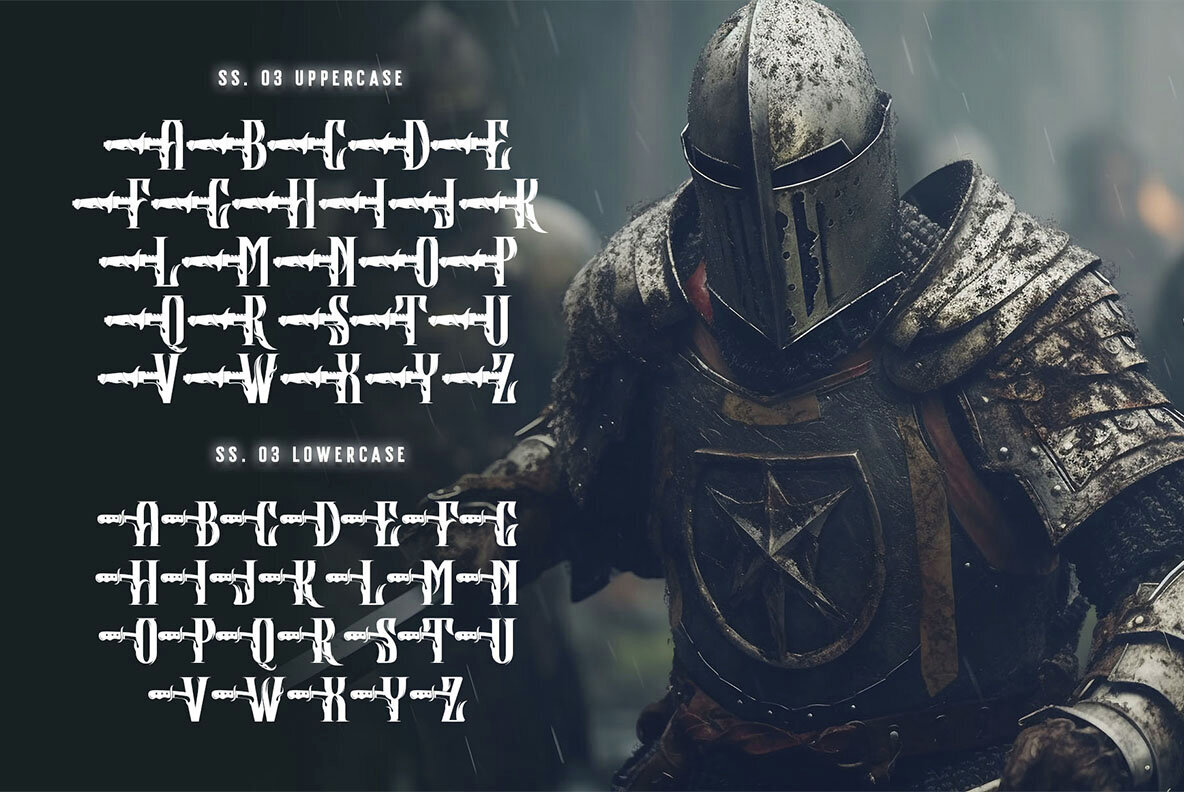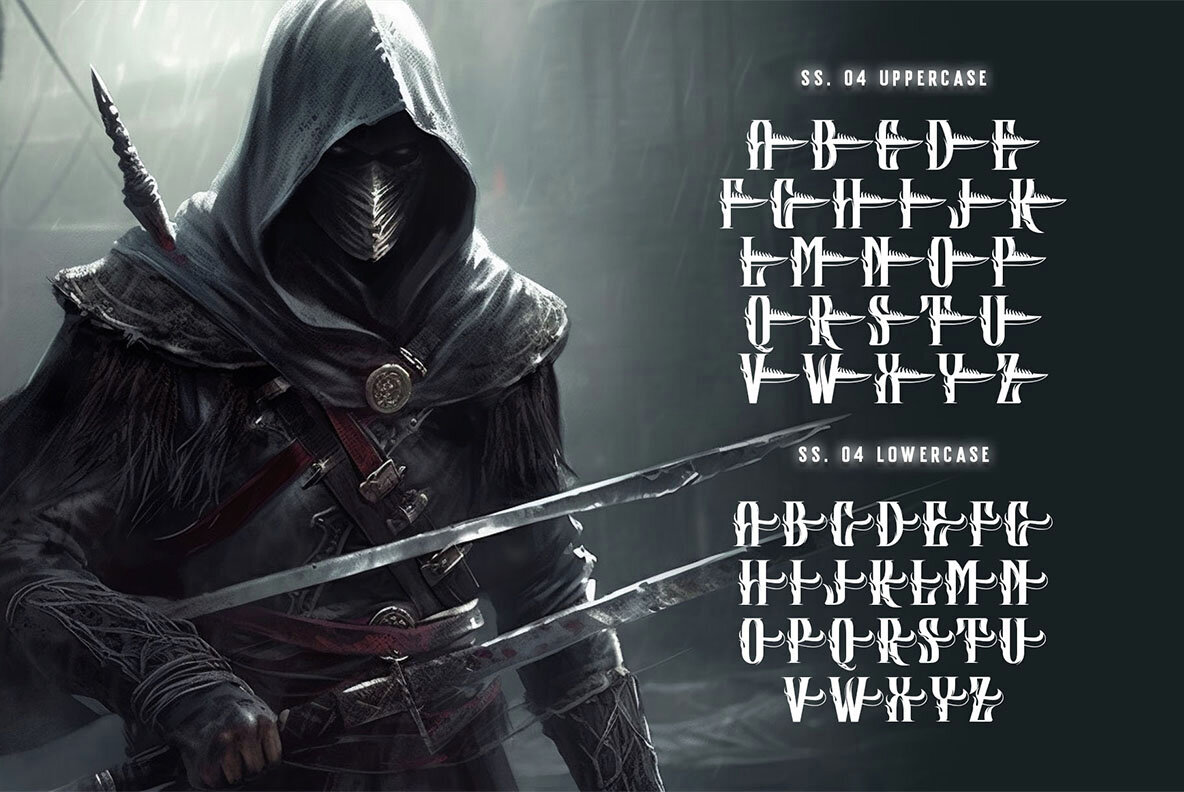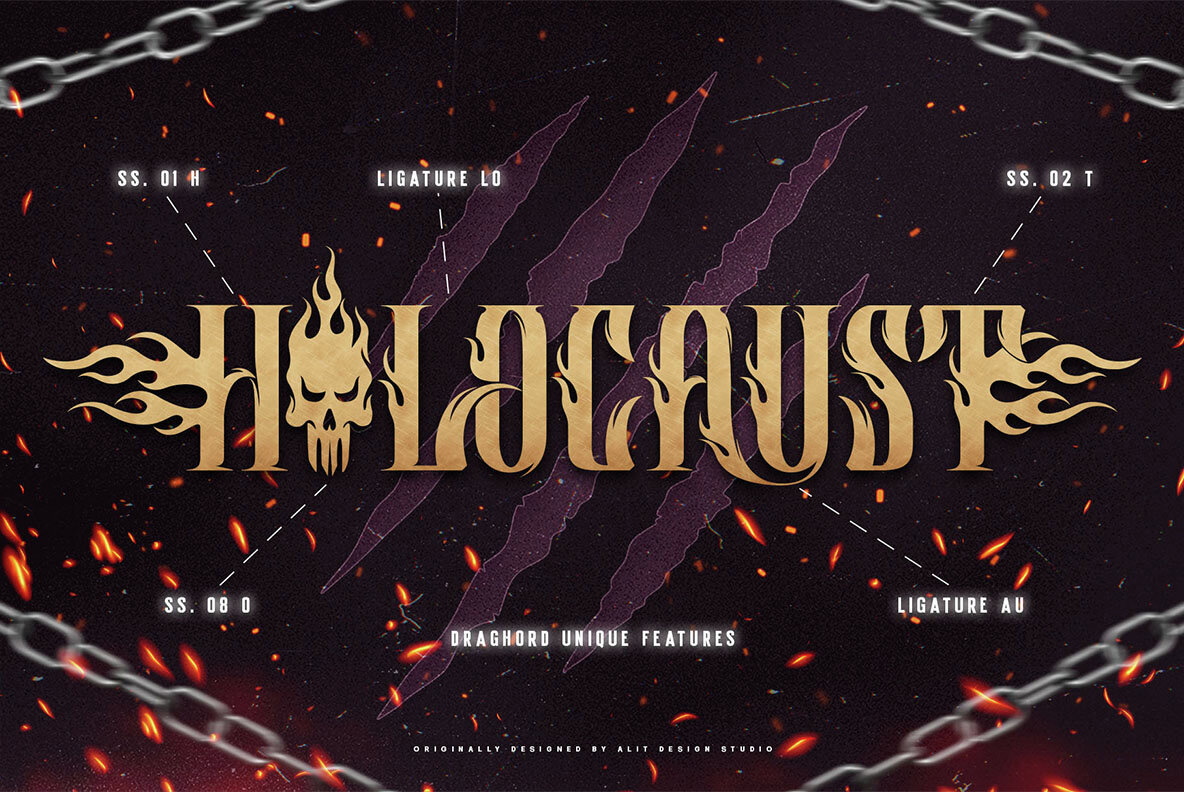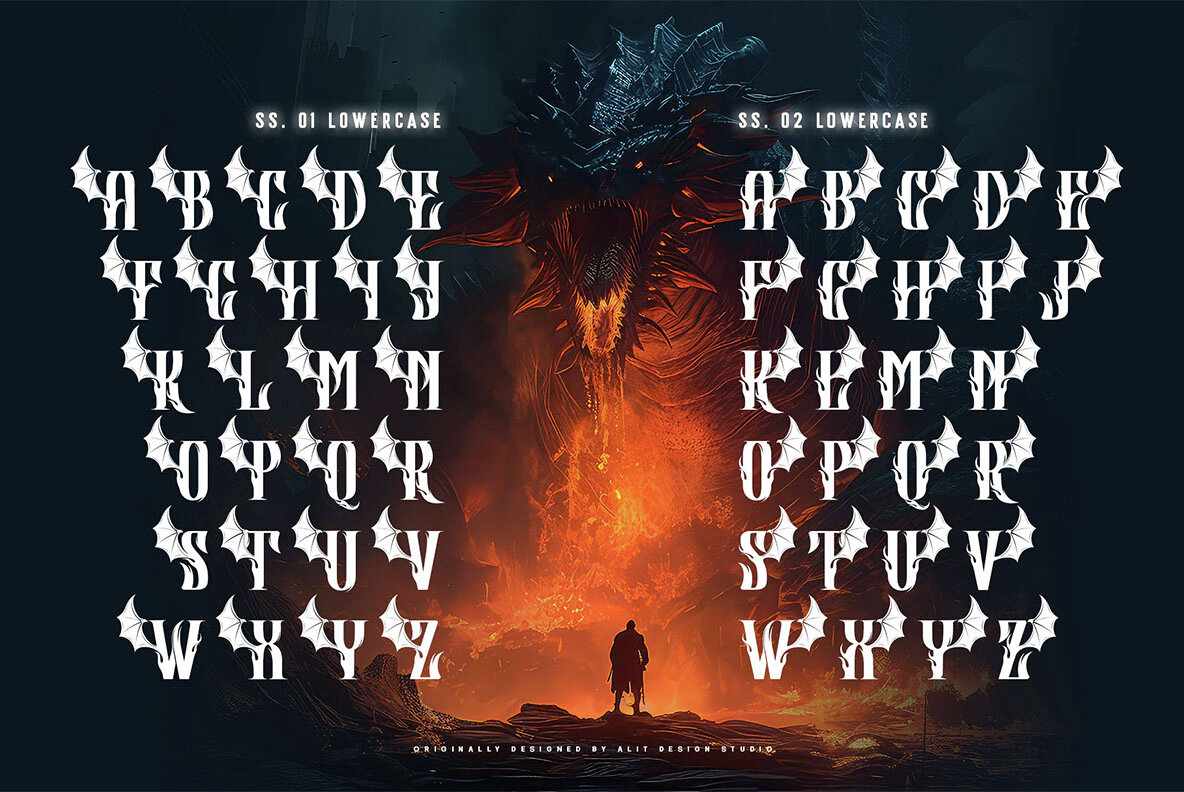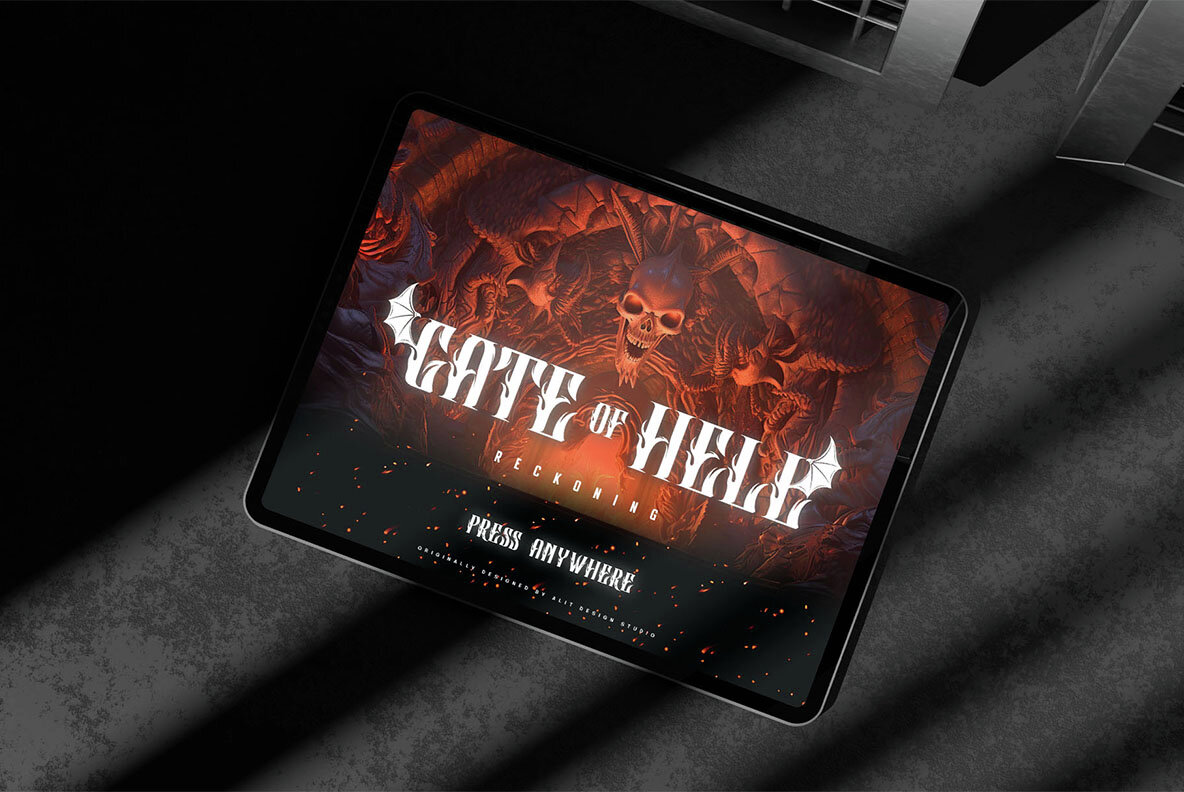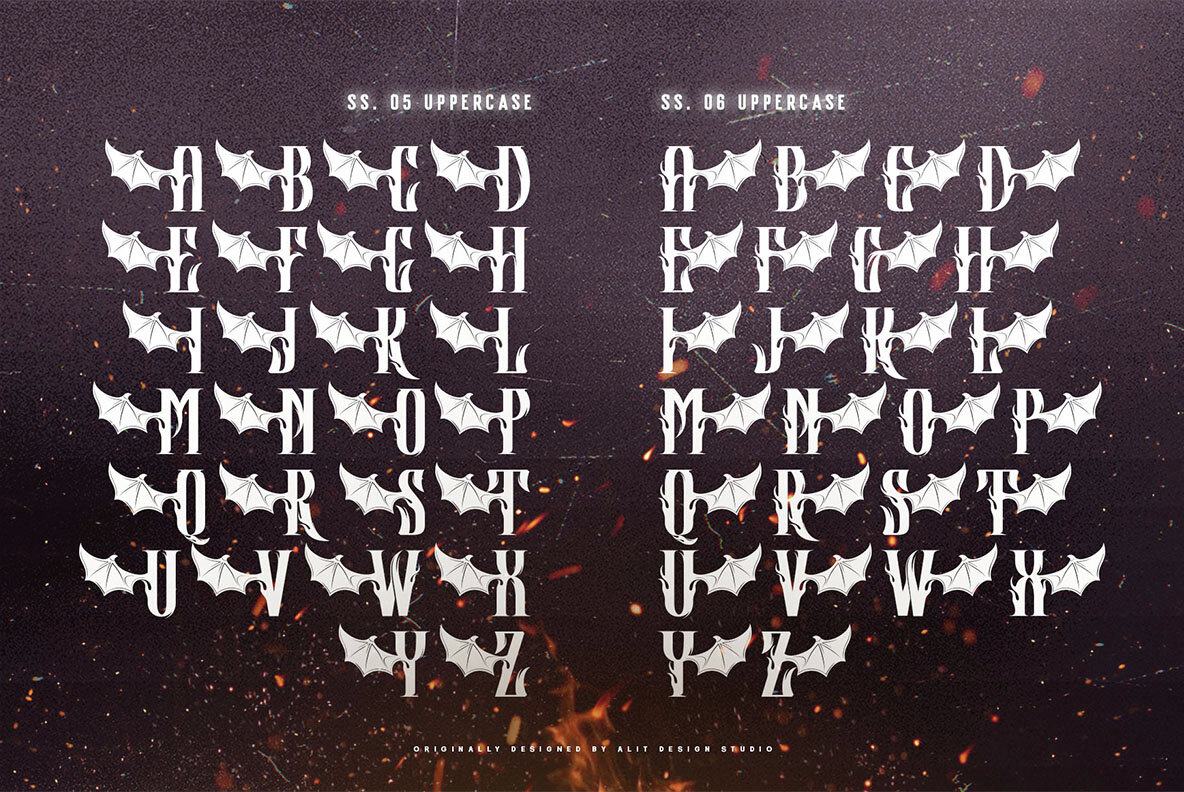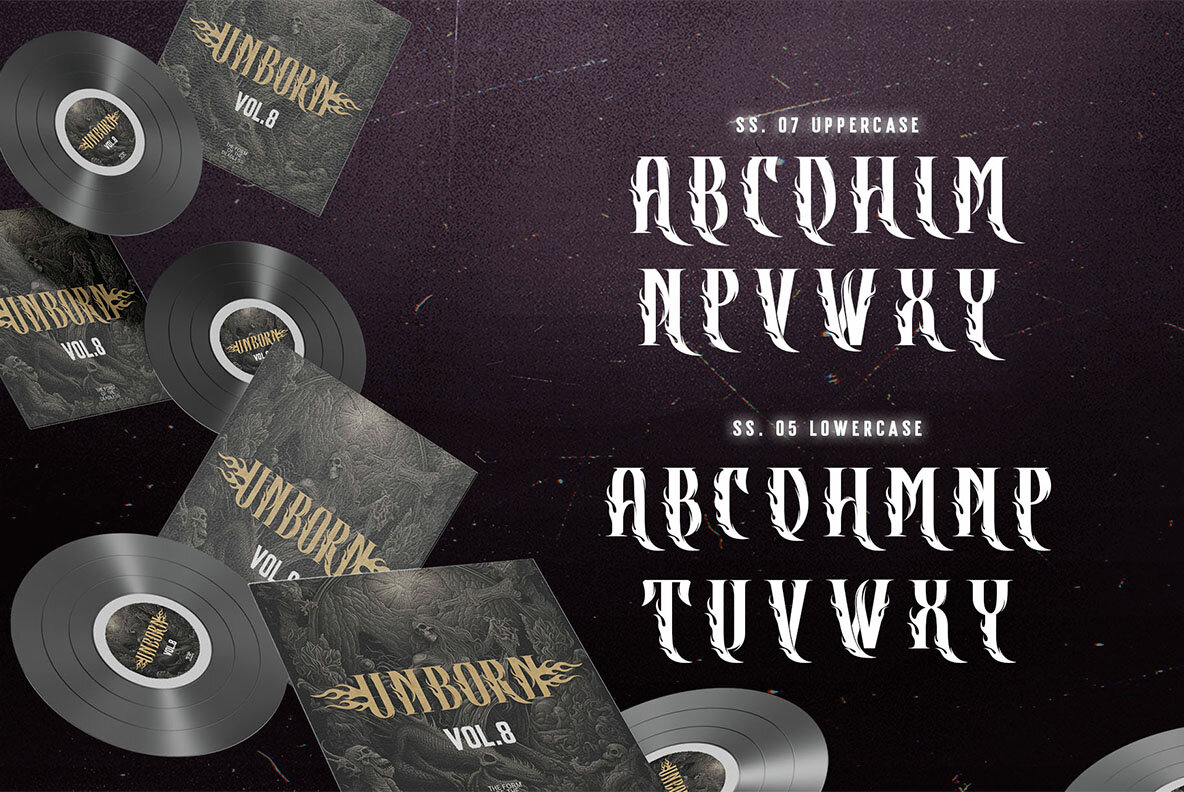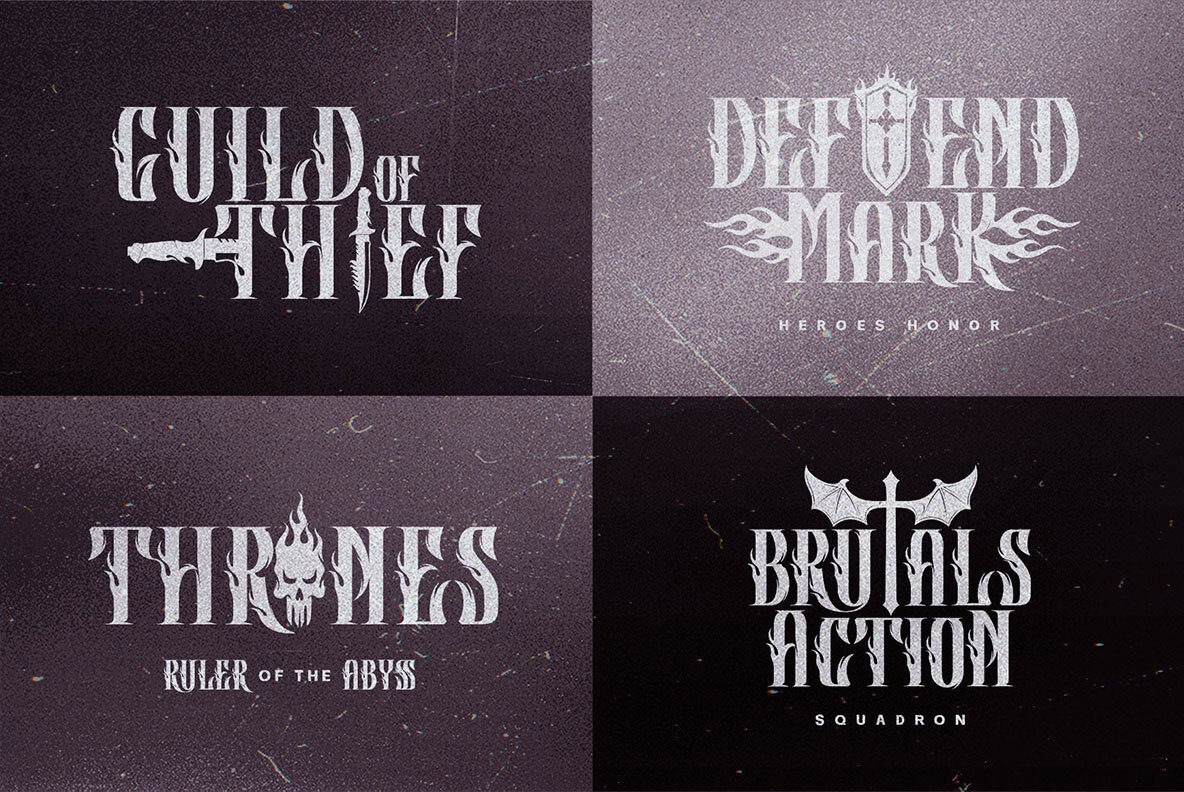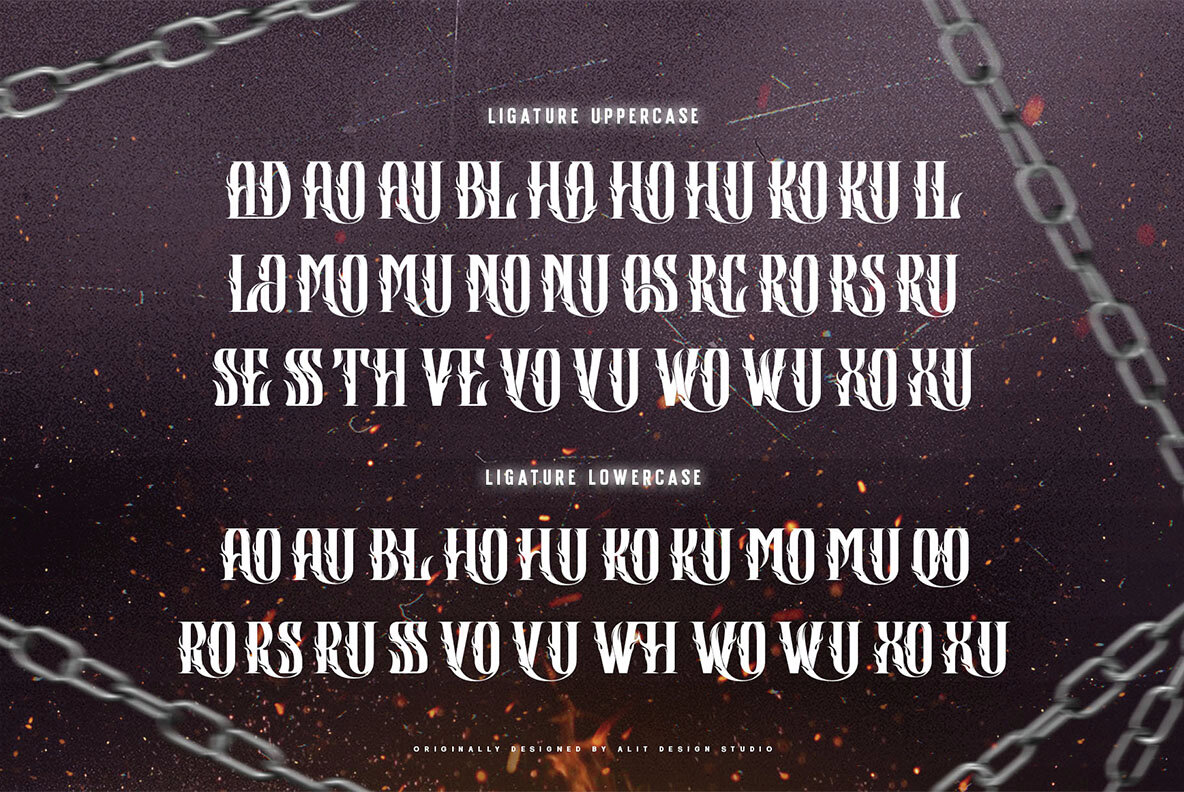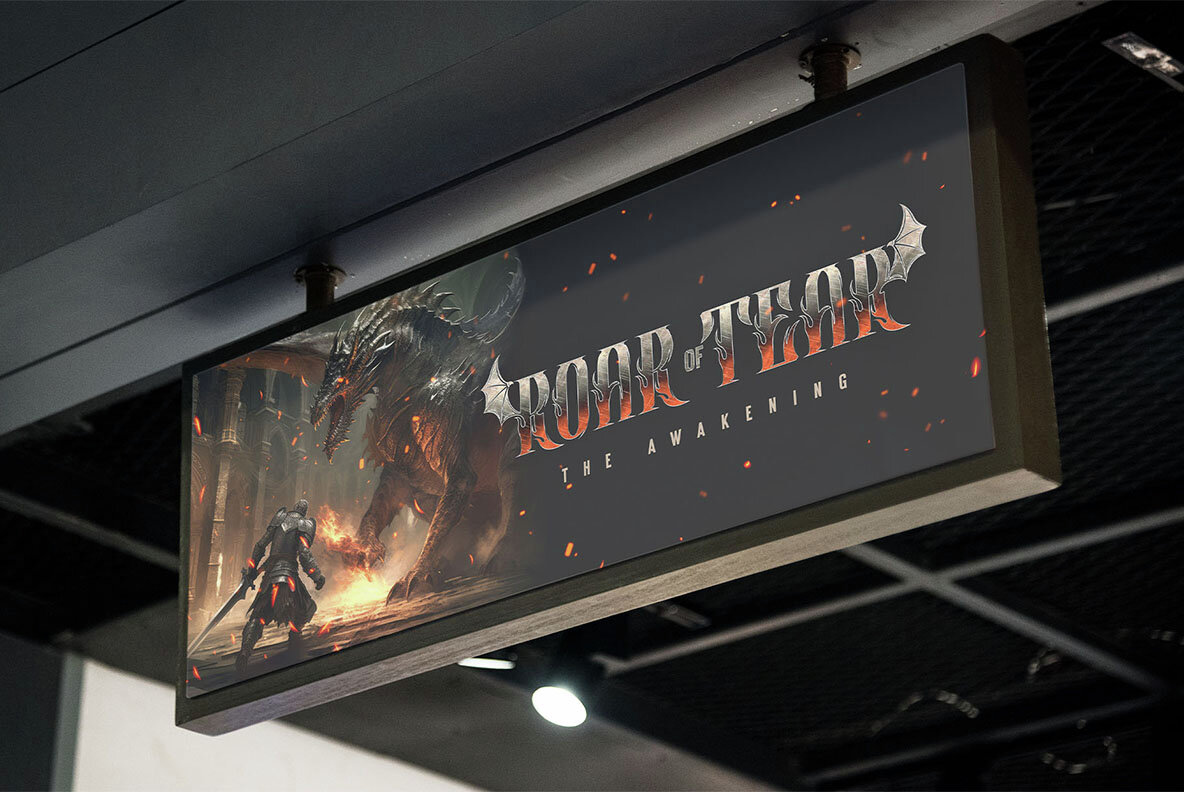
Introducing Draghord, a bold and dynamic typeface that embodies the essence of superheroic power and adventure. This font is a visual journey into the realm of fire, swords, skulls, and wings, capturing the spirit of mighty heroes and formidable villains alike. Characteristics: Draghord is not just a font; it's a visual experience that transports you into the heart of superheroic tales. With its fiery, sword-inspired design, skull motifs, and dynamic wings, Draghord is the perfect typographic companion for any project seeking to channel the thrilling energy of the superhero genre. Unleash the power of Draghord and let your words ignite the imagination!